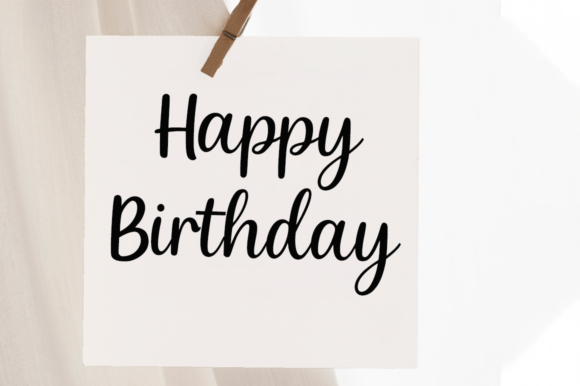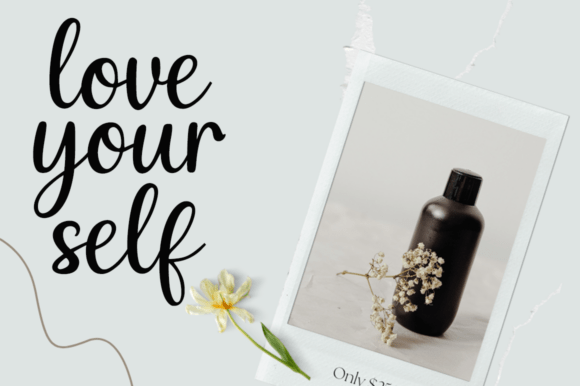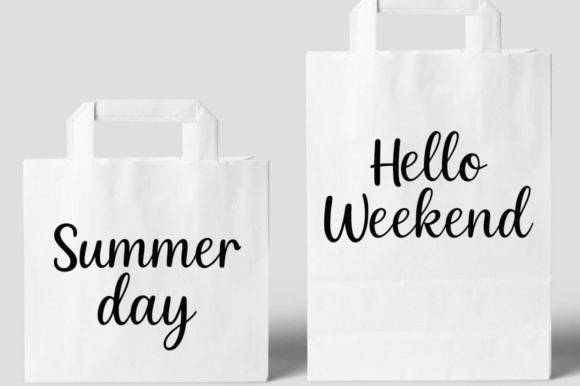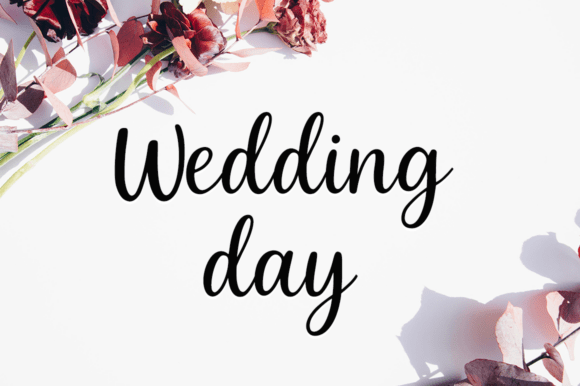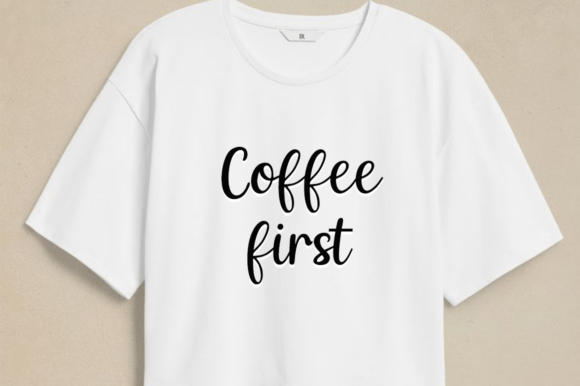
Introduction to Saturday Vibes Font
Remember the feeling of sitting on a beach on a lazy Saturday morning, sipping a cup of coffee, and staring at a blank canvas, waiting for inspiration to strike? That’s exactly the vibe you get when working with the Saturday Vibes Font – a beautiful, handwritten script font that exudes warmth and elegance. As a designer, you know the importance of having the right tools at your disposal to bring your creative vision to life.
The Saturday Vibes Font is a valuable addition to any design arsenal, offering a high-quality, free download that’s perfect for a wide range of creative projects. Whether you’re working on a design project that requires a transparent background or a promotional material that needs a friendly touch, this font is sure to deliver. With its smooth curves and playful demeanor, Saturday Vibes Font is the perfect design resource for anyone looking to add a warm, inviting atmosphere to their work.
Key Features of Saturday Vibes Font
- Unique Hand-Drawn Design: The Saturday Vibes Font boasts a distinctive hand-drawn style, perfect for adding a touch of personality to your creative project.
- Perfect for Creative Projects: The Saturday Vibes Font is ideal for a wide range of creative projects, including logos, branding materials, social media graphics, and more.
- Comprehensive Character Set: The font includes a comprehensive character set, including uppercase and lowercase letters, numerals, and special characters, making it a versatile design resource.
Honest Review: Saturday Vibes Font
I recently stumbled upon the Saturday Vibes Font, and I must say it’s a great addition to any designer’s toolkit. The font is perfect for a creative project that needs a laid-back, casual vibe. It’s available for free download, which is always a bonus!
- ✨ The font has a high quality, modern design that works well for a variety of applications.
- ✨ It’s highly legible, making it perfect for body text or headings.
- ✨ The font also comes with a transparent background, which is great for designers who want to add some extra flair to their designs.
One thing to note is that the font may not be suitable for more formal or corporate projects. It’s a bit too casual for those types of designs. ⚠️ Additionally, the font may not be as versatile as some other fonts, so be sure to test it out before committing to a project.
Overall, I’m really impressed with the Saturday Vibes Font. It’s a great resource for designers who want to add some creativity and personality to their projects. Just be sure to use it for the right type of project, and you’ll be good to go!
Use the Saturday Vibes Font with a transparent background to create a stylish and modern design. Experiment with different font sizes and styles to add depth and visual interest to your project. This high-quality design resource is perfect for creative projects and presentations.
The Saturday Vibes Font is ideal for social media graphics, blog posts, and marketing materials. Use it to create eye-catching headlines and titles that grab the attention of your audience. With its modern and sleek design, this font is a great addition to any design project.